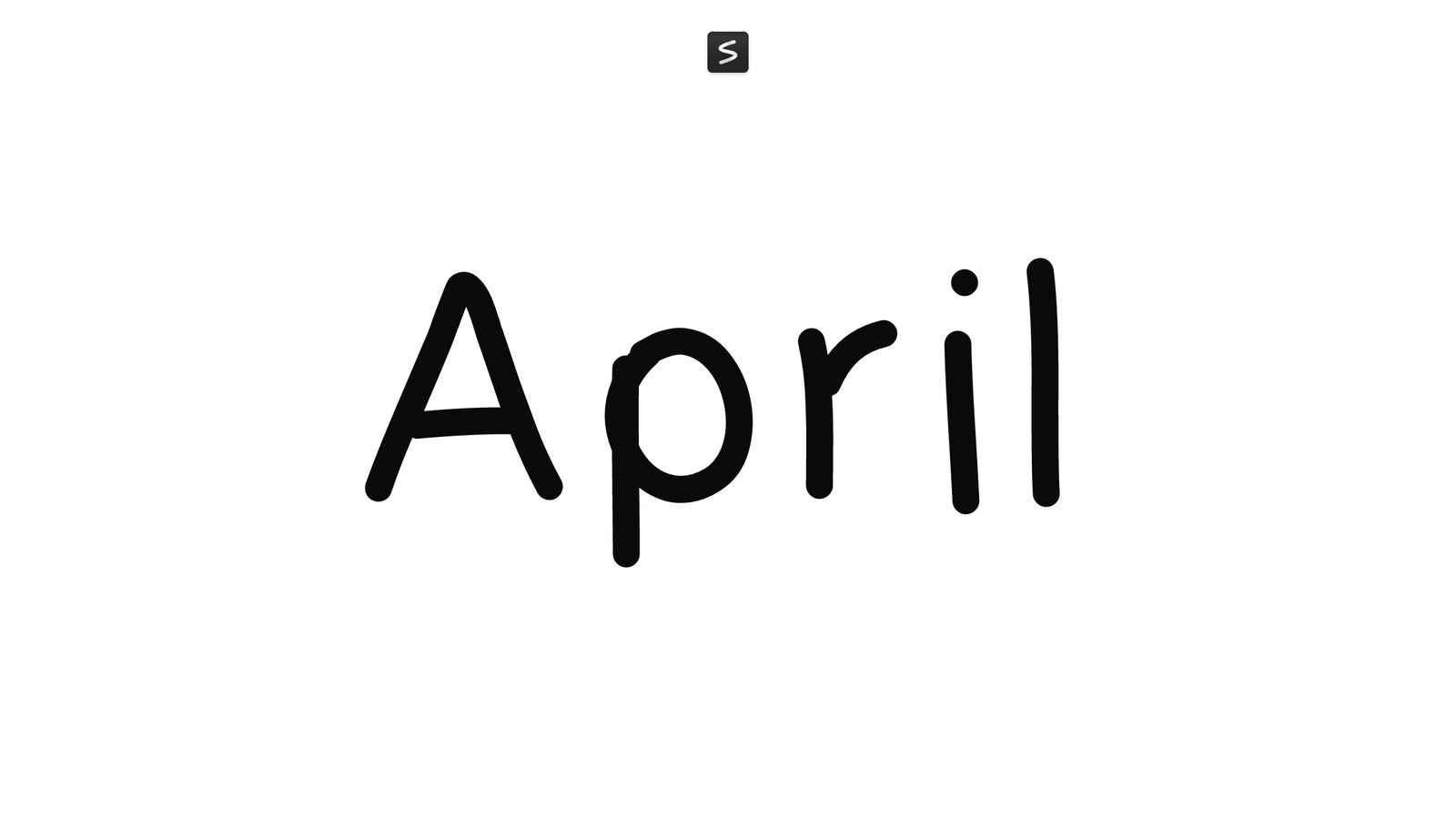
April is a casual handwriting font by Gaelleing with genuine pen-drawn character. The balanced stroke weight and rounded corners give it a warm, contemporary feel that reads clearly across sizes while maintaining a personal, friendly touch.
The letterforms have the gentle imperfection of real handwriting without sacrificing legibility. April works well for informal design work where a human touch matters: greeting cards, social media posts, personal branding, informal invitations, or anything that benefits from a conversational tone. Its accessible warmth makes it suitable for projects aimed at young audiences or designs that value approachability over formality.